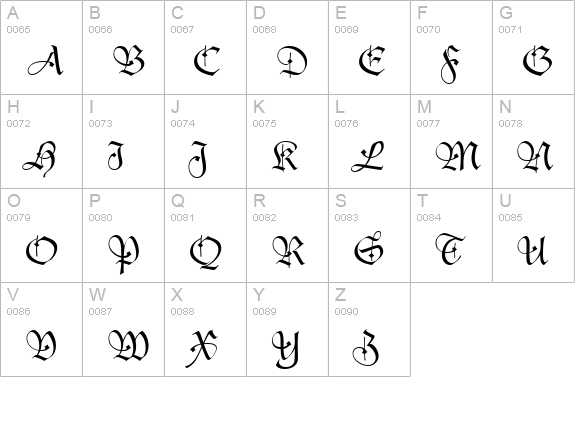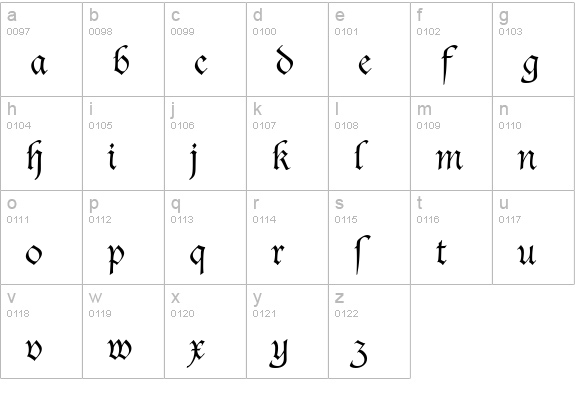
DucDeBerry Dfr Font Details
DucDeBerry Dfr font is a stunning display typeface that exudes elegance and sophistication. With its intricate details and graceful curves, this font is perfect for adding a touch of luxury to your projects. The timeless design of DucDeBerry Dfr font makes it versatile for a wide range of applications, from branding to editorial design. The best part is that DucDeBerry Dfr font is available for free download at FontsMarket.com. This means that you can easily access this beautiful font and use it in your creative endeavors without any cost. Whether you're working on a personal project or a client's assignment, DucDeBerry Dfr font is sure to elevate the overall look and feel with its timeless charm and versatility. Download it today and add a touch of sophistication to your designs!